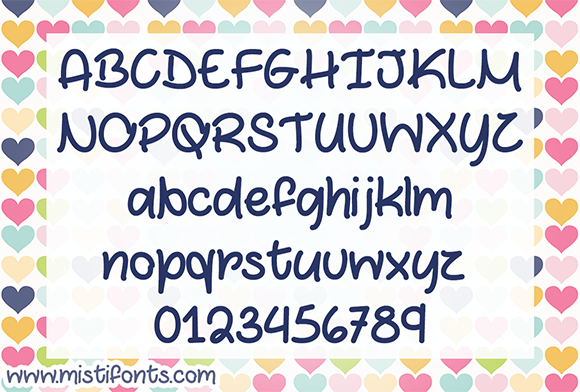
Marshmallows and Chocolate Font
About Marshmallows and Chocolate Font
Marshmallows and Chocolate is a cute, quirky handwritten font that is perfect for your craft and design projects!